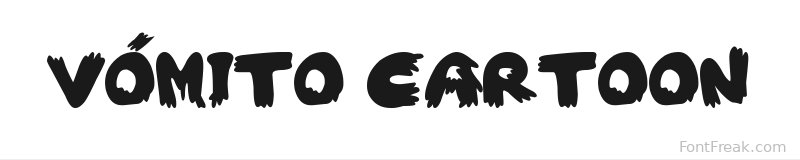
The "V" font by woodcutter Manero is a distinctive display typeface that captures a playful and whimsical essence, making it an excellent choice for various creative projects. This font is characterized by its bold, thick strokes and an uneven, hand-drawn appearance that adds a touch of charm and personality. The contrast between the heavy weight of the letters and their irregular shapes creates a dynamic visual appeal, perfect for capturing attention. The spacing is generous, allowing for clear readability, while the decorative elements, such as jagged edges and playful curves, evoke a cartoonish vibe, giving it a unique character.
The "V" font is particularly well-suited for a range of applications. It shines in projects aimed at children, such as storybooks, educational materials, or playful branding for kids' products. Additionally, its vibrant and energetic style makes it ideal for movie posters, especially for animated films or family-friendly features. The font also works well in themed restaurant menus, where a fun and inviting atmosphere is key, and it can be effectively utilized in promotional materials for events or festivals.
What sets the "V" font apart is its ability to convey a sense of fun and creativity while maintaining functionality. The unique visual style and versatility make it an excellent choice for anyone looking to add a bit of flair to their work. Don’t miss out on the opportunity to enhance your designs with the "V font free download," a choice that promises to make your projects truly stand out.